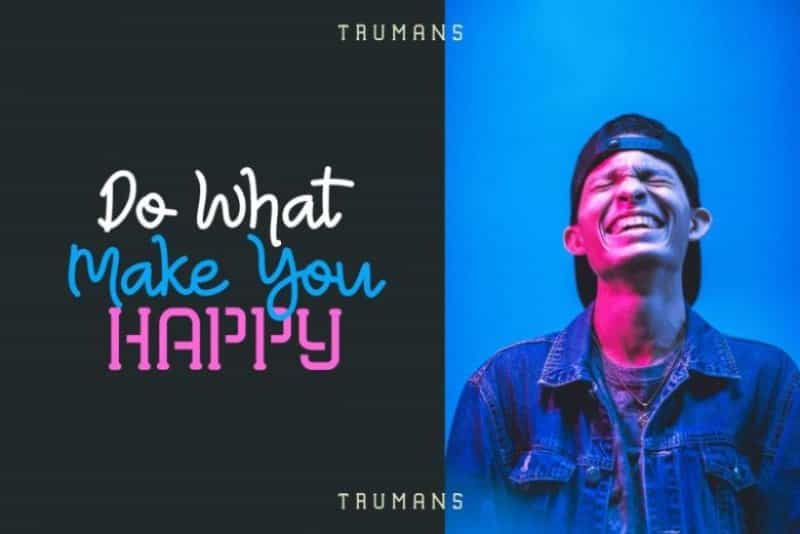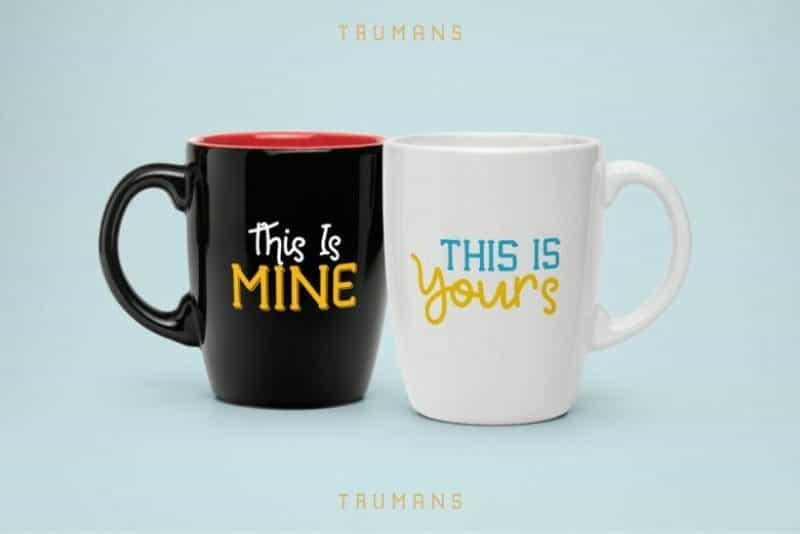
Discover TRUMANS Duo Font Family, part of the Handwritten Serif collection—a versatile and unique font perfect for adding a personal touch to your projects. Download it for free and enjoy crafting designs with style, from invitations to social media posts. This font is available exclusively for personal use, giving you the freedom to create without limits. Unlock your creativity with TRUMANS Duo Font Family today!
Hi Everyone!Introducing our newest font : TRUMANS!It’s a DUO Font family with FIVE STYLES FONTS All in one font : Normal Sans, Futuristic Stencil, 3D Shadow, handwriting scrip and Outline Sans serif are the major types of fonts.